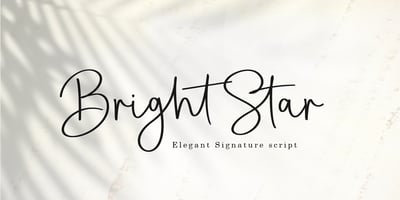
Bright Star Script Font Family was designed by Nasrullah and published by Sulthan Studio. Bright Star Script contains 2 styles and family package options. Bright Star is a signature that comes in a natural style, and it also comes with the usual script style, plus beautiful swashes on the lowercase characters at the beginning and end.this will create many choices to use according to your wishes.Bright Star, The alternative characters were divided into several Open Type features such as Stylistic Alternates, and Ligature. The Open Type features can be accessed by using Open Type savvy programs such as Adobe Illustrator, Adobe InDesign, Adobe Photoshop Corel Draw X version, And Microsoft Word. And this Font has given PUA unicode (specially coded fonts). so that all the alternate characters can easily be accessed in full by a craftsman or designer.Bright Star Features :Uppercase & Lowercase International Languange & Symbols Support Punctuation & Number PUA Unicode Range Standard Ligatures Discretionary Ligatures Stylistic Alternates Stylistic Set 01 Character